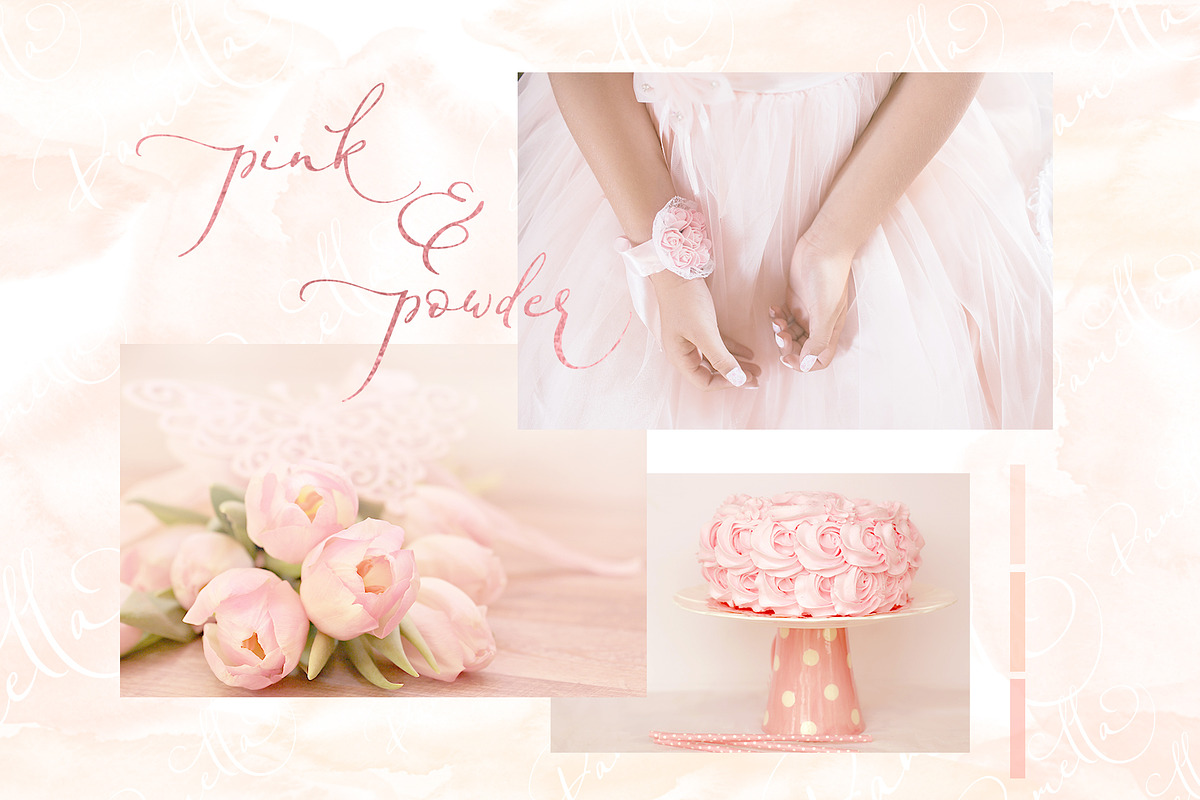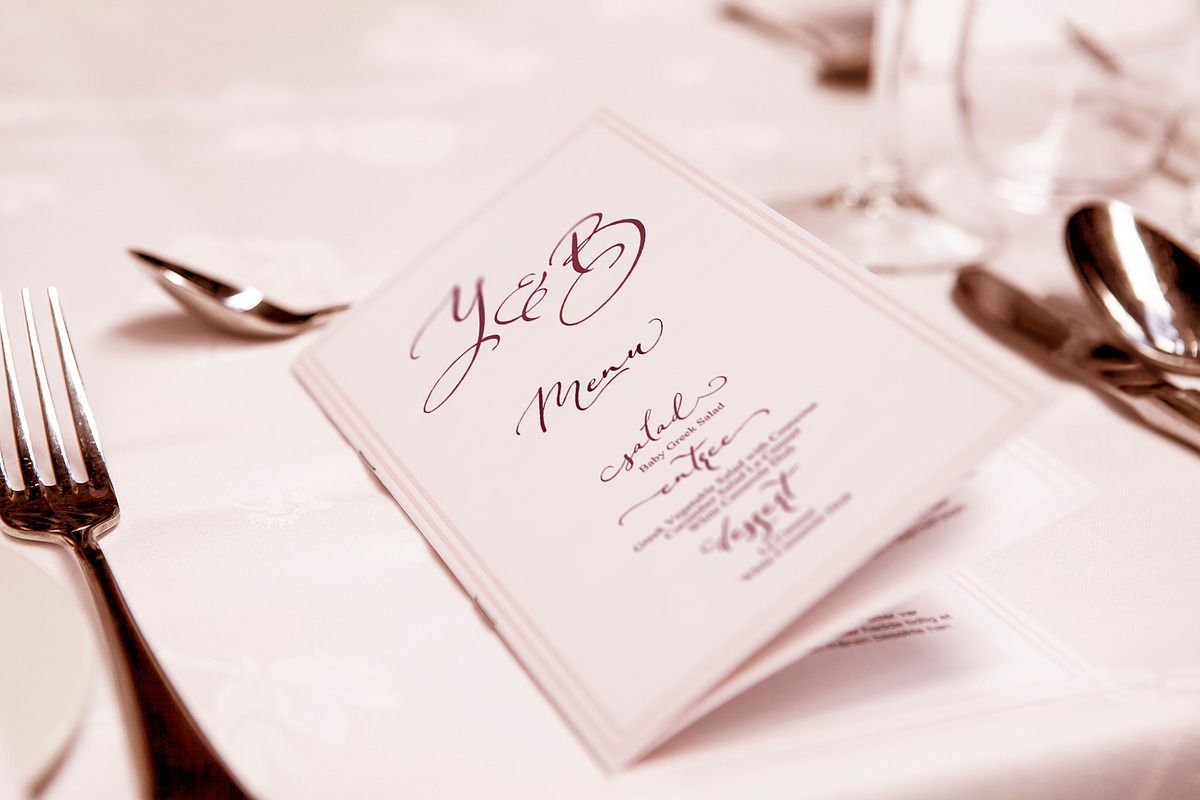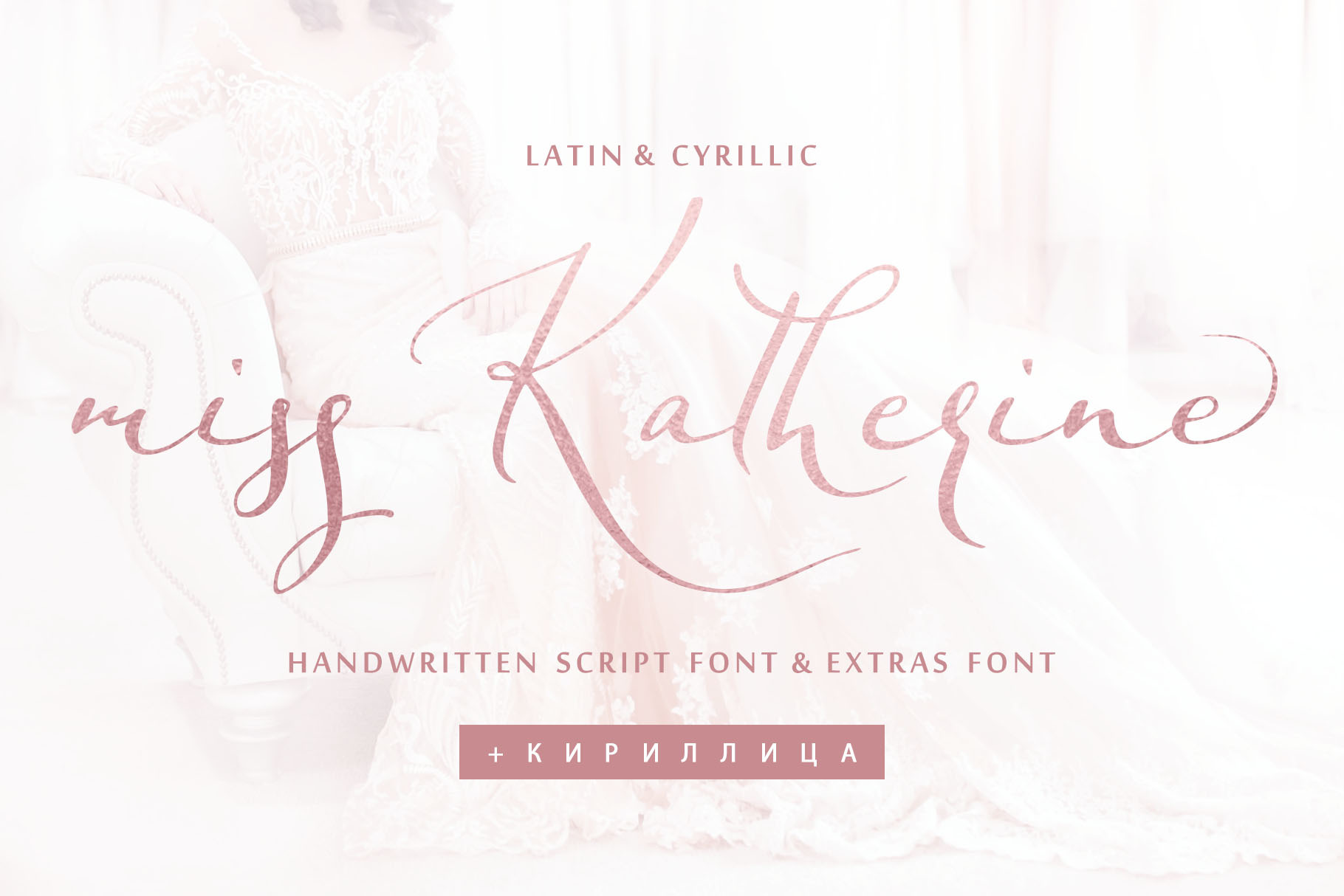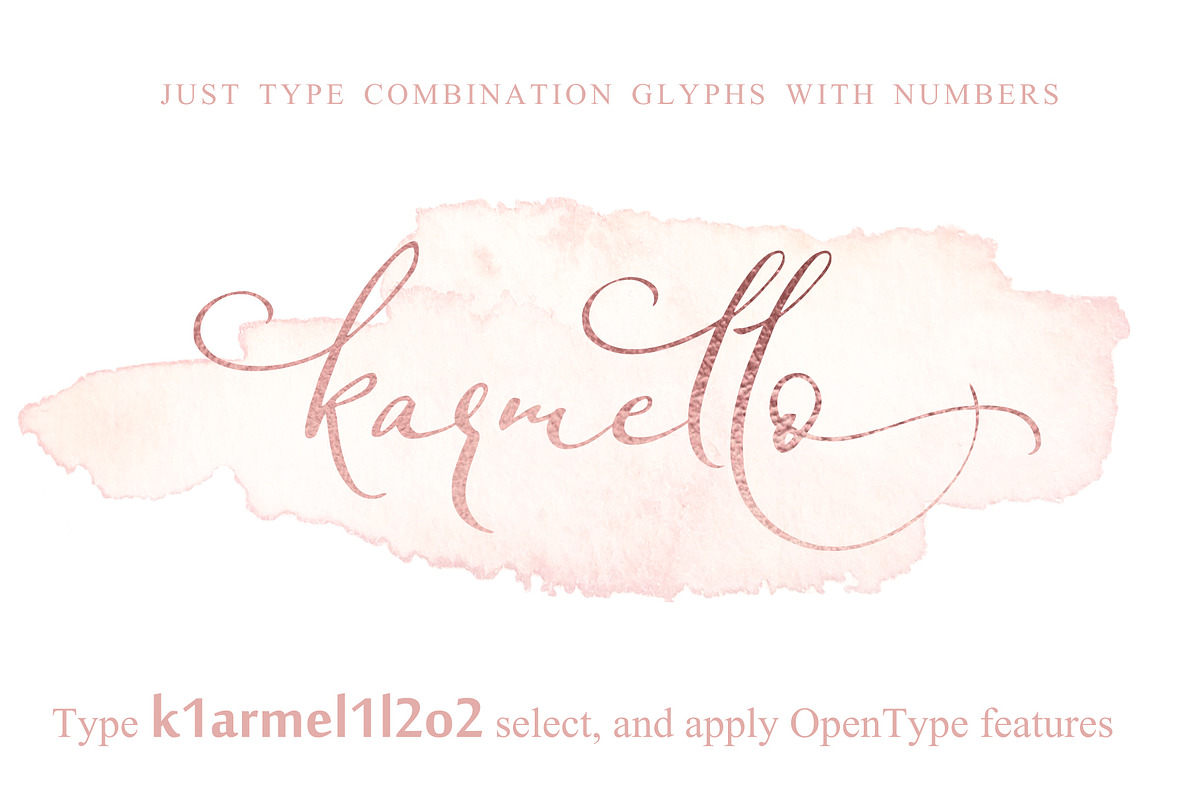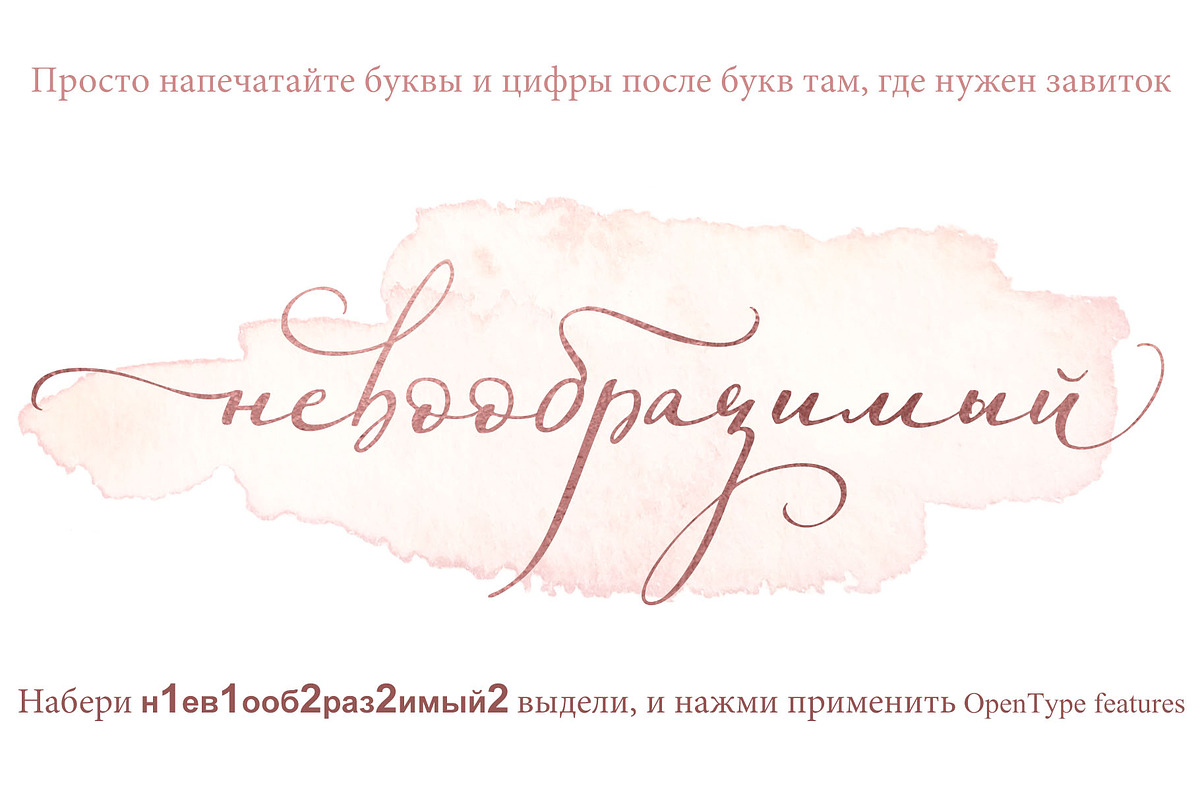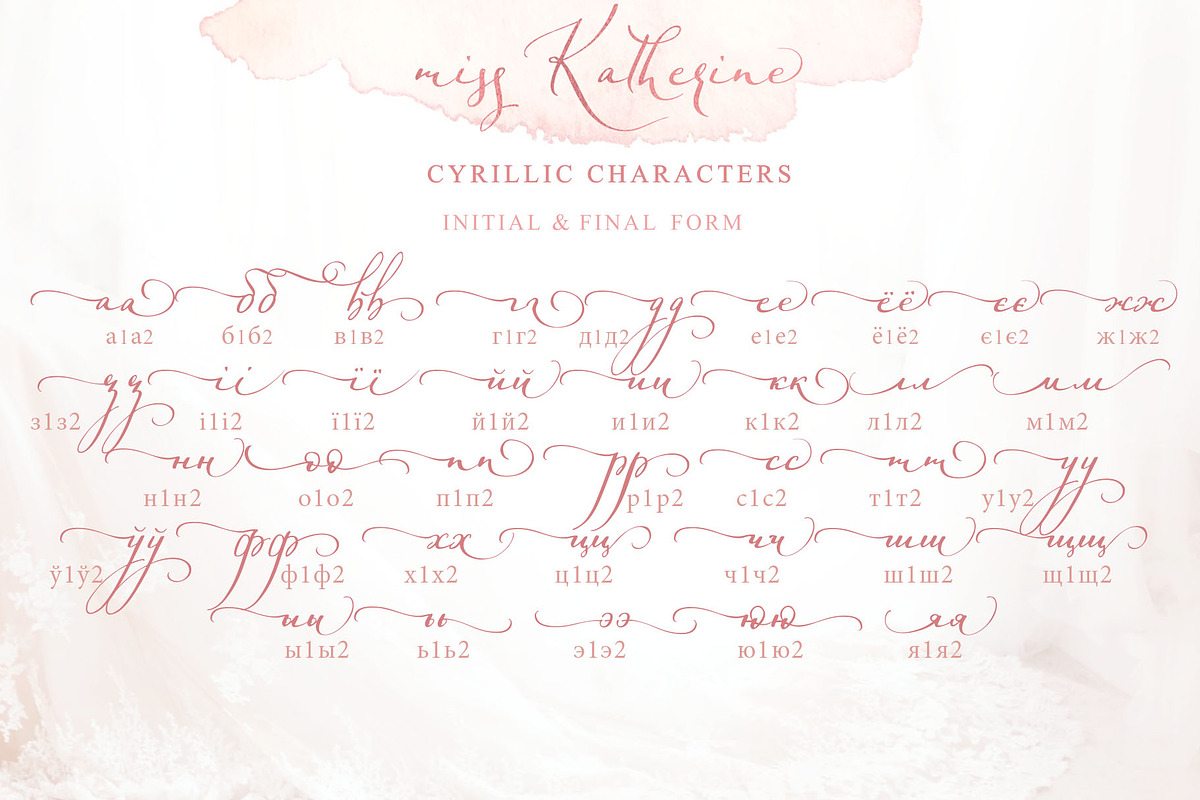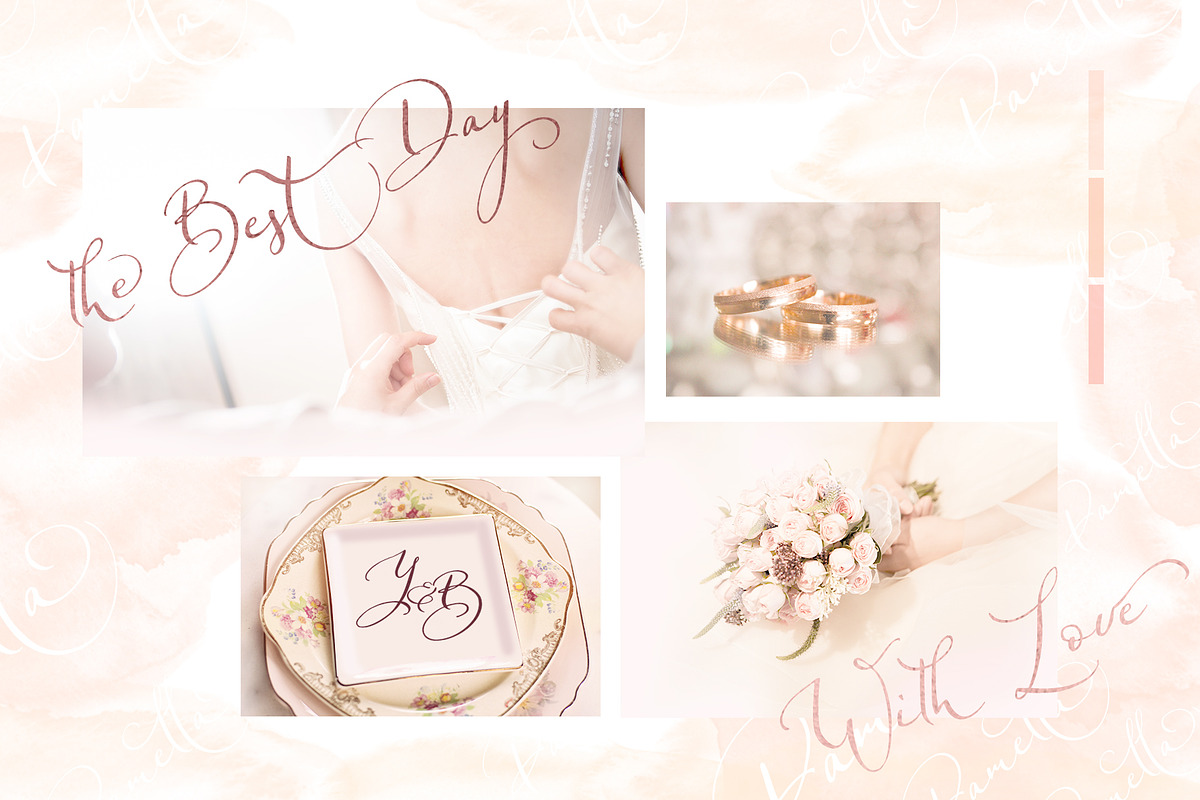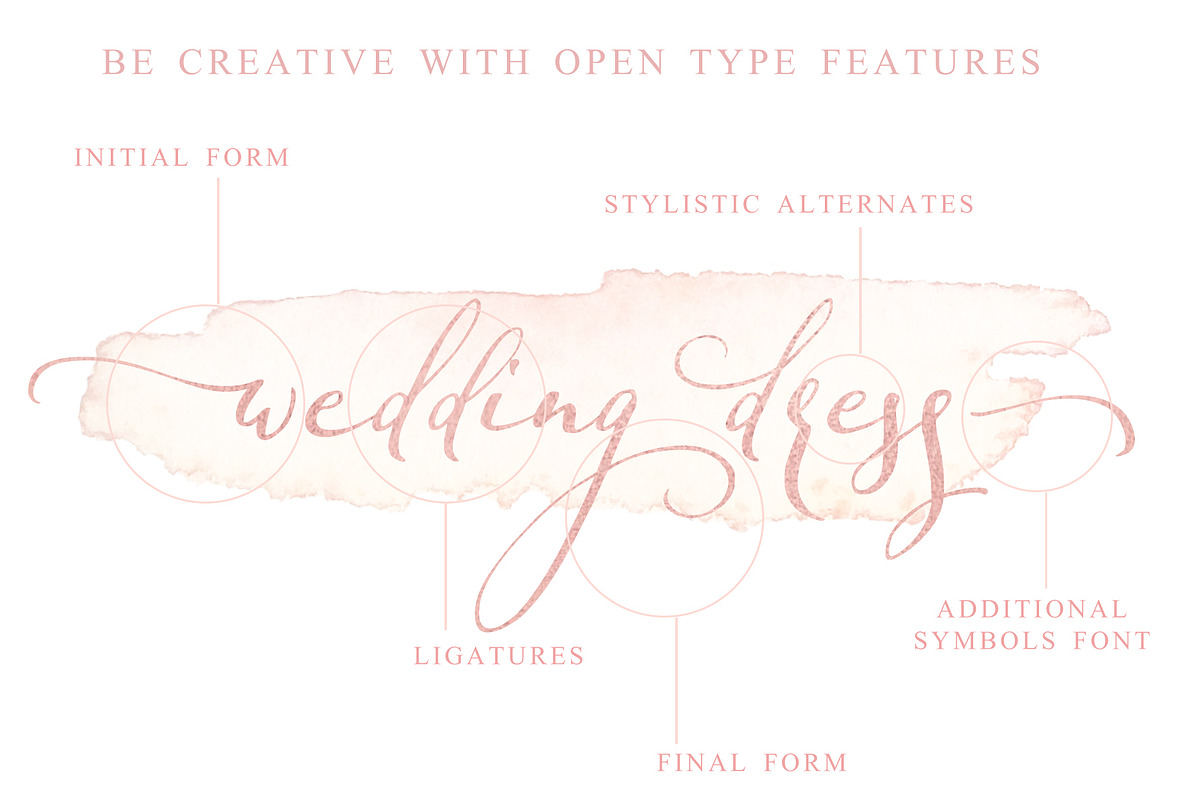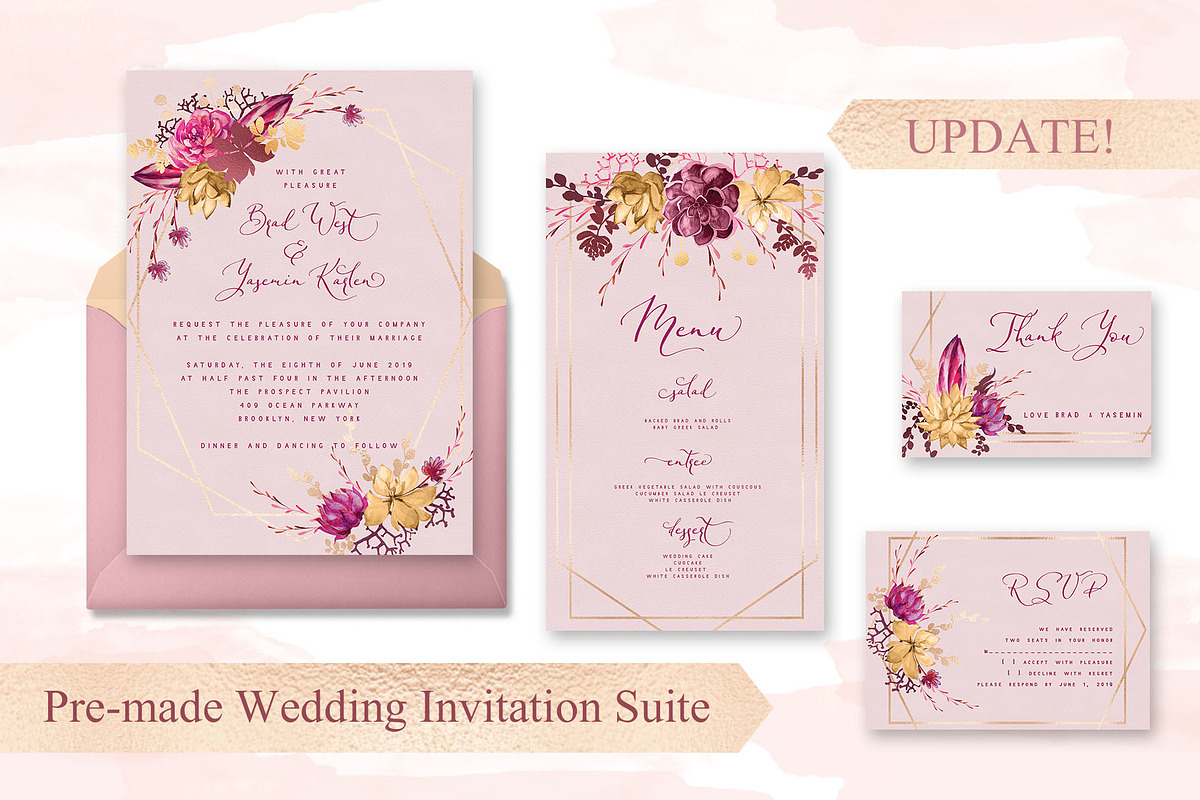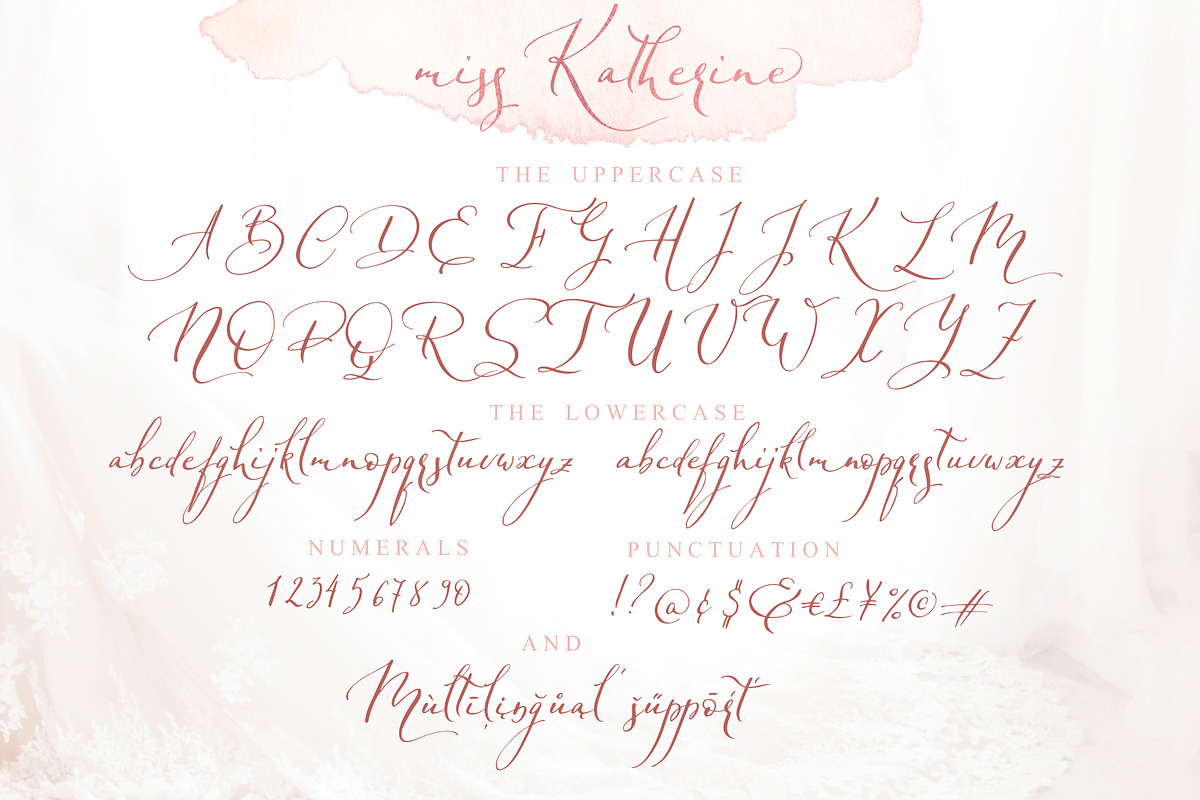
Miss Katherine font Cyrillic + Extra
I am happy to present to you the updated product Miss Katherine font + Extras & Logo and now it includes also Cyrillic glyphs! Uppercase lowercase and 2 sets lowercase with flourishes!
Miss Katherine script is a graceful, feminine, calligraphic handwritten script font. Its charming elegant style makes it perfect for use in your wedding invitations design, monograms, blog headlines or cards. Also, it will look great in gorgeous wedding stationery, typographic designs, posters and much more.
Miss Katherine script includes a full set of gorgeous uppercase, 4 sets of lowercase letters, numerals, a large range of punctuation and 35 ligatures, giving realistic hand-lettered style.
Miss Katherine_symbols is a font with over 36 hand-drawn elements, catchwords, illustrations, and swashes and can help to make your design more original. A different symbol is assigned to ever uppercase or lowercase standard character plus numbers 0-9 so you do not need graphics software just simply type the letter you need.
- Multilingual Support for 31 languages: Latin glyphs for Afrikaans, Albanian, Basque, Bosnian, Catalan, Danish, Dutch, English, Estonian, Faroese, Filipino, Finnish, French, Galician, Indonesian, Irish, Italian, Malay, Norwegian Bokmål, Portuguese, Slovenian, Spanish, Swahili, Swedish, Turkish, Welsh, Zulu. And Cyrillic glyphs support for Russian, Belorussian, Bulgarian and Ukrainian languages. (Does font support more Cyrillic languages just type a message in the text box below and see if all characters you’ll need are there.)